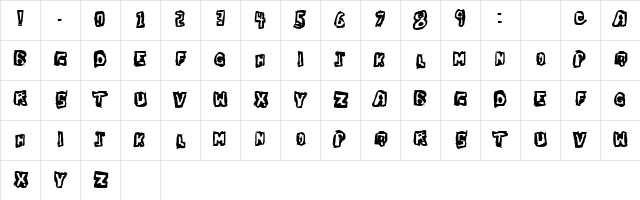
Dawg Box Regular
Design Context for Dawg Box
Dawg Box is a composed and adaptable typeface that performs quietly and consistently across a wide range of design contexts.